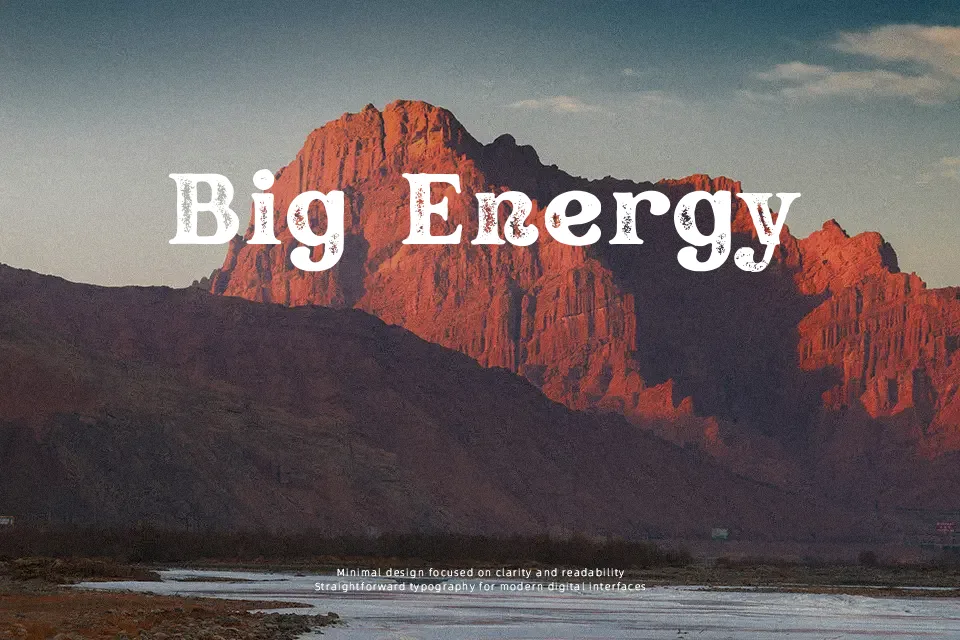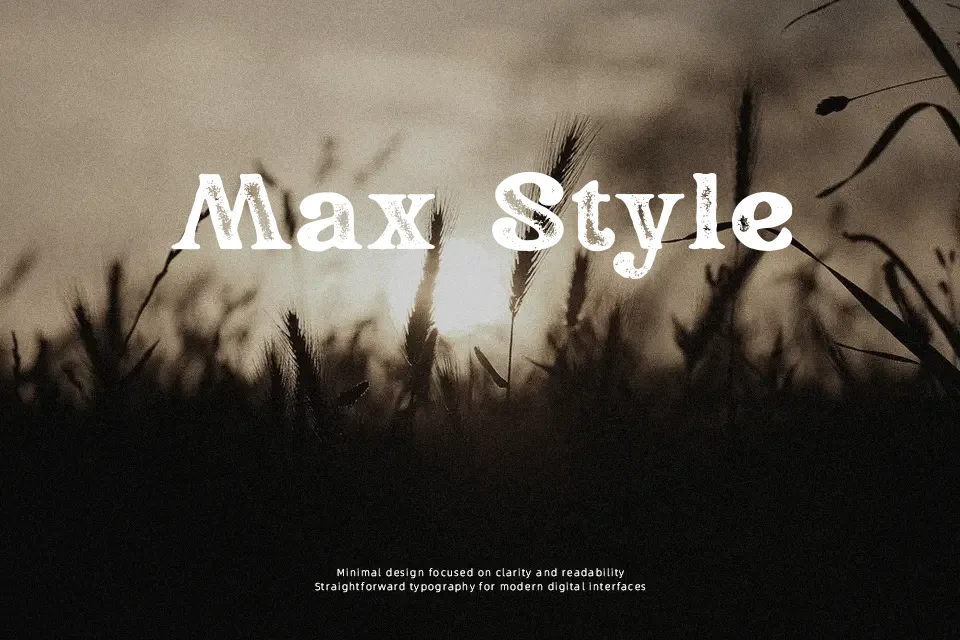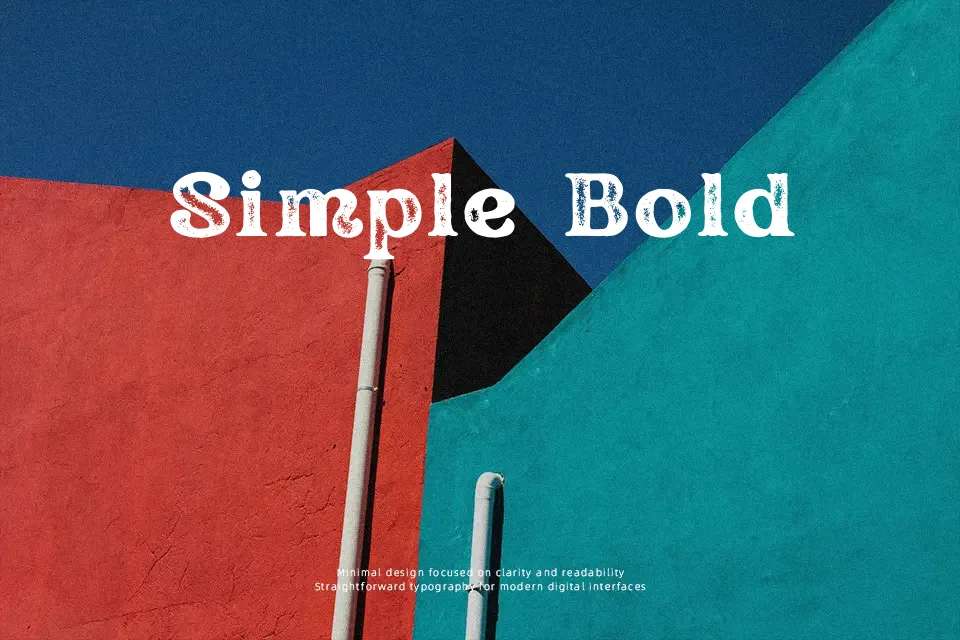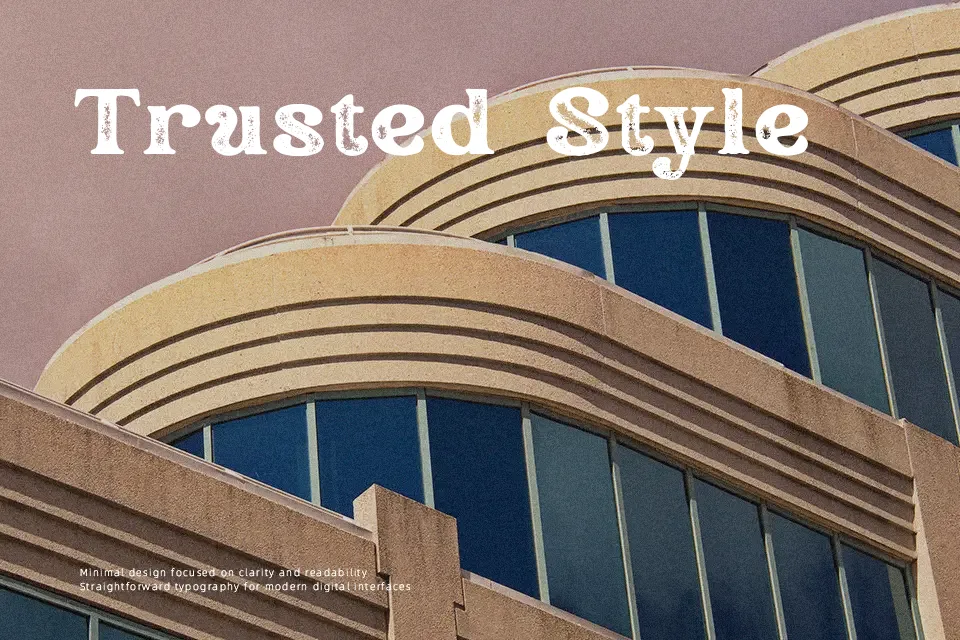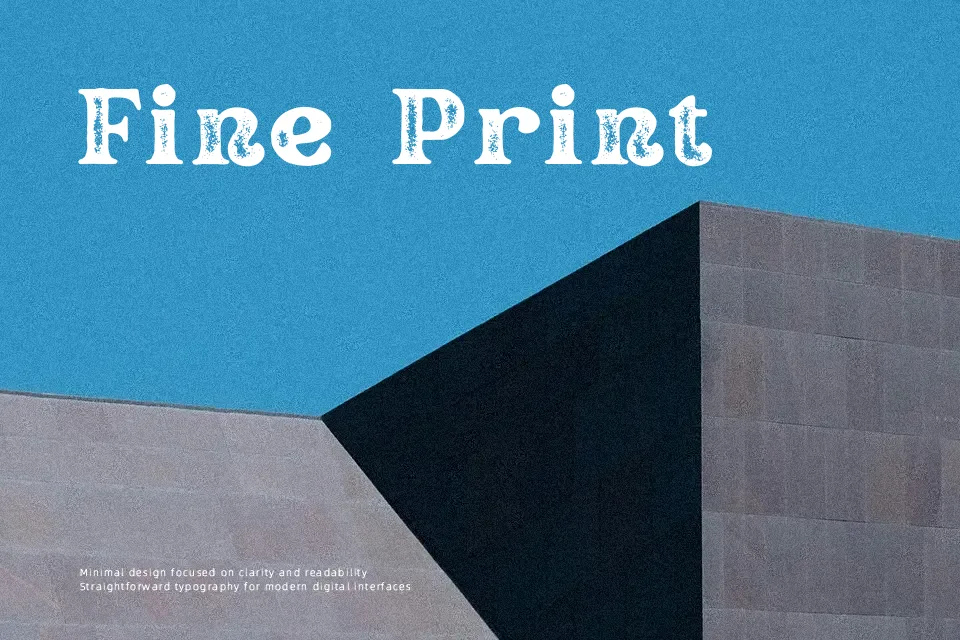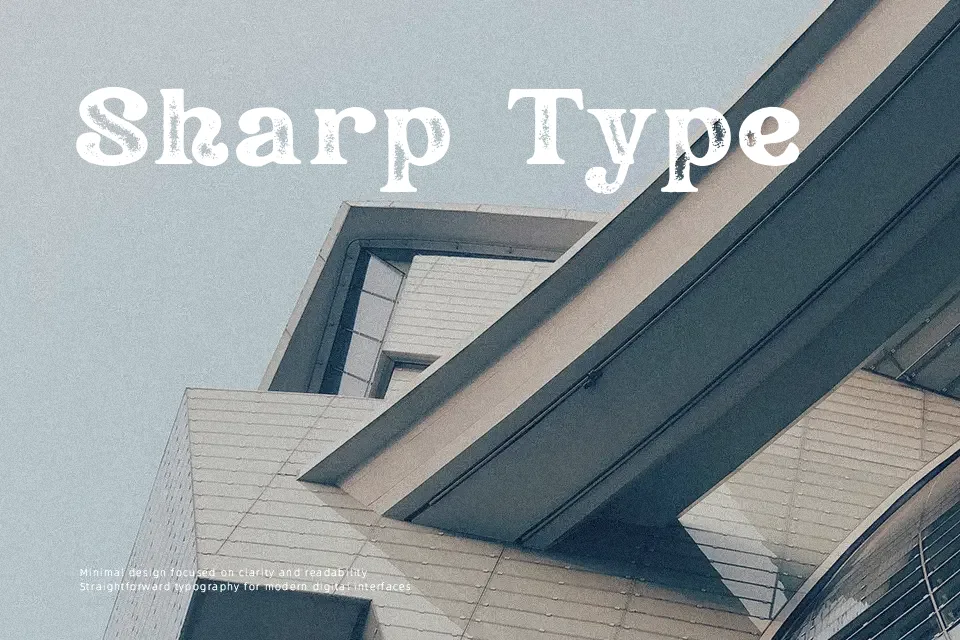
Rundeck Font
Designed by Edignwn Type
Rundeck Font performs exceptionally well when displayed at larger sizes, commanding attention with its bold structure and retro character. The letterforms feature thick, deliberate strokes and compact spacing that create a strong visual rhythm across varied layouts. Its smooth curves and sturdy proportions give the typeface a warm, nostalgic feel that fits seamlessly into vintage apparel graphics and striking festival posters. The tight spacing helps maintain clarity in massive headlines, ensuring immediate visual impact. However, the heavy weight and dense forms reduce comfort during extended reading, making it less suitable for long paragraphs or dense editorial layouts. This robust design remains a highly effective choice for impactful, display-oriented branding.
vintage product packaging, music festival posters, fashion apparel graphics, bold website hero headlines
long paragraph text, corporate reports, dense editorial layouts, small interface labels
Perfect for branding, fashion, and headline, with a bold and decorative style.